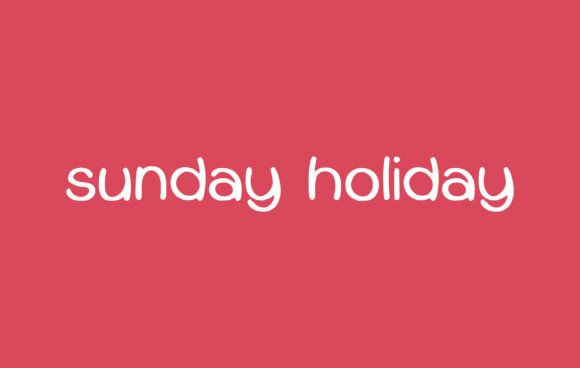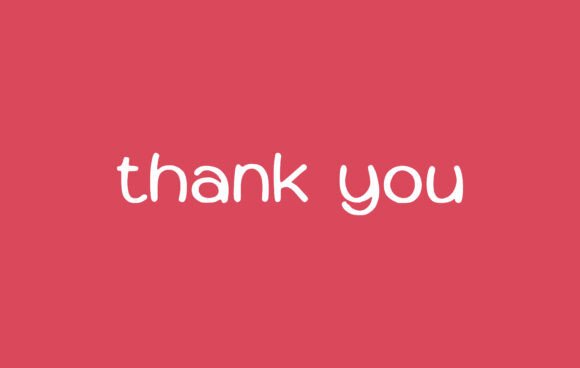
Introducing Celestique Font: The Ultimate Handwritten Font for Creative Designs
Are you tired of using the same old fonts for your designs? Look no further! Celestique font is here to revolutionize your creative projects with its authentic handwritten style and romantic touch. In this article, we’ll dive into the features and benefits of Celestique font, and explore how it can elevate your designs to new heights.
What is Celestique Font?
Celestique font is a beautifully crafted handwritten font that exudes elegance and sophistication. Designed to be a true favorite among designers and crafters, this font boasts a unique and authentic style that sets it apart from other fonts. With its romantic touch, Celestique font is perfect for creating stunning designs that capture the heart and imagination.
Key Features of Celestique Font
- Authentic Handwritten Style: Celestique font is designed to mimic the natural flow and imperfections of handwritten text, giving it a warm and personal feel.
- Legible and Versatile: This font is not only beautiful but also highly legible, making it perfect for use as title or body text.
- Romantic Touch: Celestique font has a subtle romantic flair that adds a touch of whimsy and charm to any design.
Perfect for a Variety of Designs
Celestique font is incredibly versatile and can be used for a wide range of design projects, including:
- Magazine Headlines: Add a touch of elegance and sophistication to your magazine headlines with Celestique font.
- Social Media Graphics: Create stunning social media graphics that stand out from the crowd with this beautiful font.
- Branding and Packaging: Use Celestique font to create a unique and memorable brand identity that reflects your values and personality.
- Wedding Invitations and Cards: Add a romantic touch to your wedding invitations, cards, and other stationery with this gorgeous font.
Benefits of Using Celestique Font
So why choose Celestique font for your design projects? Here are just a few benefits of using this amazing font:
- Unique and Authentic Style: Celestique font offers a fresh and unique perspective on handwritten fonts, setting it apart from more generic fonts.
- Time-Saving: With Celestique font, you can create stunning designs in no time, thanks to its ease of use and versatility.
- High-Quality Design: This font is expertly designed to deliver high-quality results that will impress your audience and elevate your brand.
Tips for Using Celestique Font
To get the most out of Celestique font, here are a few tips to keep in mind:
- Experiment with Different Sizes and Colors: Don’t be afraid to try out different sizes and colors to find the perfect combination for your design.
- Pair with Other Fonts: Celestique font pairs beautifully with other fonts, so feel free to experiment with different font combinations to create a unique look.
- Use for Both Title and Body Text: This font is legible and versatile, making it perfect for use as both title and body text.
In conclusion, Celestique font is a game-changer for designers and crafters looking to add a touch of elegance and sophistication to their designs. With its authentic handwritten style, romantic touch, and versatility, this font is sure to become a favorite among creative professionals. So why wait? Download Celestique font today and take your designs to new heights!